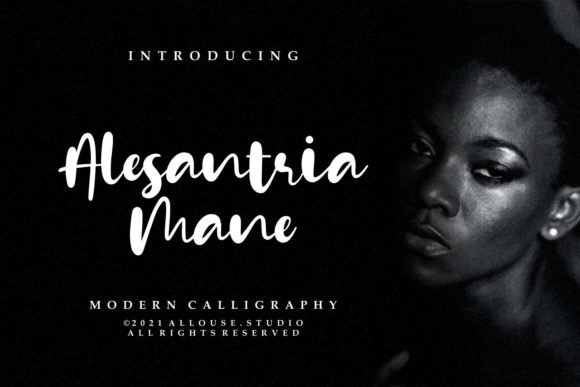
Introduction to Alesantria Mane Font
Alesantria Mane is a gorgeous and bold handwritten font, crafted to give your headlines and logotype projects a stylish touch.
This font reads as strong, confident, and dynamic and can add tons of nostalgic character to your designs .
Key Features of Alesantria Mane Font